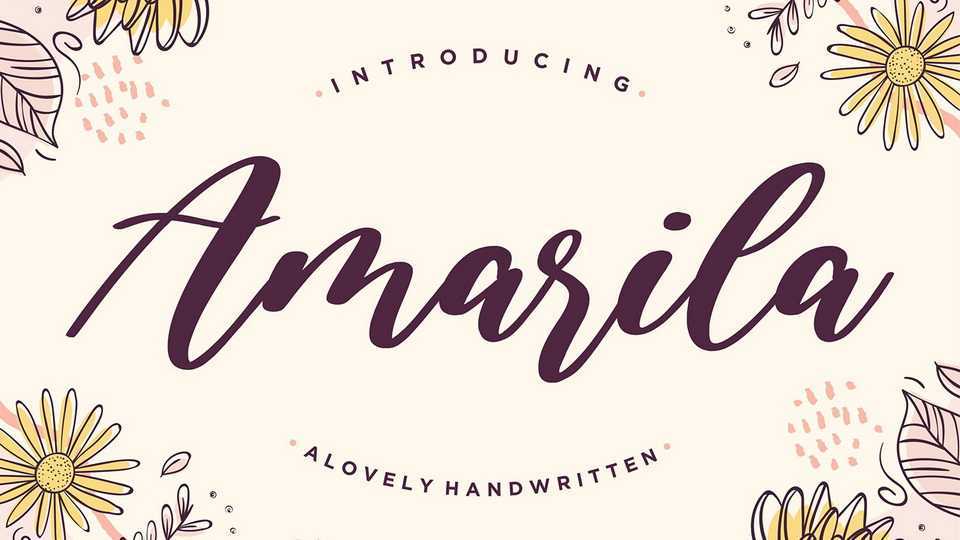
Download Amarila font, a lovely and sweet handwritten typeface with nice smooth lines. Amarila is perfect for product packaging, branding project, magazine, social media, wedding, or just used to express words above the background.
Designer: Balpirick Studio